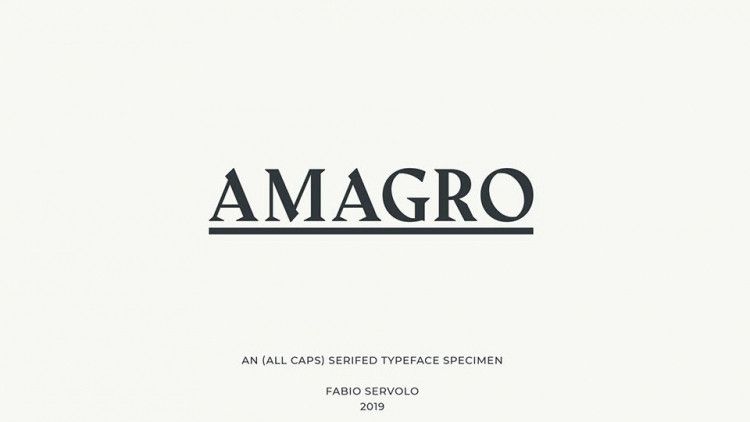
Amagro Font
Amagro is a sharp and contrast display serif typeface. It comes in a Bold weight, additional weights are available on request.
The font contains all caps letters, numbers, symbols, supports multilanguage.
Amagro font is perfect for headlines, posters, short messages and text.